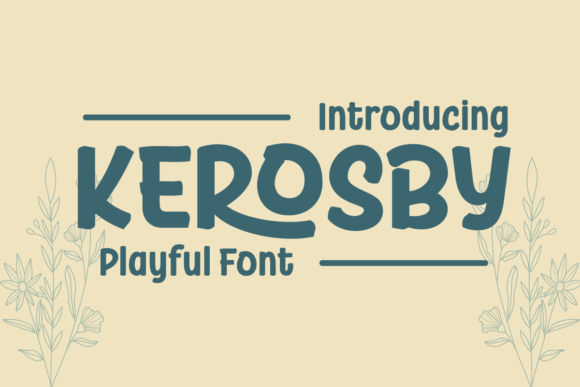
Prepare to embark on a delightful typographic journey with "KEROSBY Font" - an enchanting display font that transforms your creative visions into playfully captivating realities. This remarkable creation by twinletters unleashes a world of boundless possibilities, inviting you to infuse a whimsical charm into every project.
Unleash Your Inner Playfulness:
With its distinctively playful design, "KEROSBY Font" is the ultimate choice for adding a touch of whimsy and energy to your designs. Its vibrant characters are meticulously crafted to capture attention and leave a lasting impression, making your messages and designs radiate a sense of joy and lightheartedness.
Craft Enchanting Designs:
Step into a world of creative possibilities with "KEROSBY Font." Whether you're weaving enchanting children's books, designing eye-catching posters, or crafting quirky branding materials, this font is your ultimate companion. Witness how its playful style transforms ordinary designs into extraordinary visual feasts.
Memorable Expressions:
"KEROSBY Font" is meticulously designed to ensure that your message is delivered with a playful twist. Its charming characters add a touch of humor and personality to your content, making it instantly memorable and captivating. Prepare to leave a lasting impression on your audience as your words dance across the screen with a playful grace.
Endless Creative Possibilities:
With "KEROSBY Font," your imagination knows no bounds. Let your creativity soar as you infuse your projects with a sprinkle of playfulness. Watch as your designs come to life with this captivating typeface, captivating your audience with its irresistible charm. Elevate your design game today and witness the transformative power of "KEROSBY Font."
Elevate Your Design Game:
"KEROSBY Font" is your secret weapon for elevating your design game. Its playful energy and captivating style will transform your projects into visually stunning masterpieces. Join the creative revolution and experience the magic of "KEROSBY Font" today!